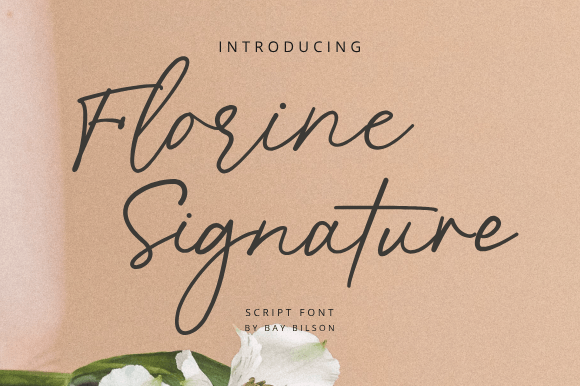
Introducing Florine Signature Font: Elevate Your Designs with Elegance and Sophistication
Are you looking for a font that exudes luxury, charm, and romance? Look no further than Florine Signature, an elegant and sophisticated script font designed to add a touch of refinement to any project. With its smooth curves and delicate strokes, this beautiful font embodies the essence of handwritten calligraphy, making it perfect for a variety of creative applications.
The Beauty of Florine Signature
Florine Signature is a stunning script font that boasts a fluid style and subtle flourishes, bringing a personal and romantic feel to your designs. Its elegant curves and refined strokes evoke the charm of traditional calligraphy, making it an excellent choice for projects that require a touch of sophistication. Whether you’re creating custom wedding invitations, designing event signage, or crafting beautiful greeting cards, Florine Signature is the perfect font to make your message stand out.
Perfect for Cricut Crafts and DIY Projects
For crafters and DIY enthusiasts, Florine Signature is a dream come true. This versatile font is optimized for use with Cricut cutting machines, making it easy to incorporate into your cutting projects. From custom vinyl decals to intricate paper crafts, Florine Signature adds a level of elegance and refinement that’s sure to impress. Plus, its compatibility with popular design software makes it easy to use in a variety of creative applications.
Wedding Invitations and Event Signage
Florine Signature is an ideal font for wedding invitations, event signage, and other celebratory designs. Its romantic and elegant feel makes it perfect for couples looking to add a touch of sophistication to their special day. Use it to create beautiful wedding stationery, custom banners, or even event signage – Florine Signature is sure to make your designs shine. Its classic and timeless aesthetic ensures that your creations will be cherished for years to come.
Greeting Cards and Stationery
Florine Signature is also perfect for creating beautiful greeting cards and stationery. Its delicate strokes and elegant curves make it an excellent choice for birthdays, anniversaries, and other special occasions. Add a touch of luxury to your correspondence with this stunning script font, and make your messages truly unforgettable.
Key Features of Florine Signature
- Elegant and sophisticated script font: Perfect for adding a touch of luxury and charm to any project
- Smooth curves and delicate strokes: Embodying the essence of handwritten calligraphy
- Fluid style and subtle flourishes: Bringing a personal and romantic feel to designs
- Optimized for Cricut crafts and DIY projects: Compatible with popular design software and cutting machines
- Timeless and modern aesthetic: Perfect for celebrations and special moments
Tips for Using Florine Signature
To get the most out of Florine Signature, try pairing it with complementary fonts and design elements. Here are a few tips to keep in mind:
- Pair with bold fonts: Combine Florine Signature with bold, modern fonts for a striking contrast
- Add subtle textures: Incorporate subtle textures and patterns to add depth and interest to your designs
- Experiment with colors: Try pairing Florine Signature with a range of colors, from soft pastels to rich jewel tones
| Author | Muwatta Studio |
Florine Signature is a truly exceptional script font that offers a unique blend of elegance, sophistication, and romance. Whether you’re a designer, crafter, or DIY enthusiast, this beautiful font is sure to elevate your projects and add a touch of luxury to your creations. With its smooth curves, delicate strokes, and fluid style, Florine Signature is the perfect choice for wedding invitations, event signage, greeting cards, and a wide range of other creative applications. Try it today and discover the magic of Florine Signature!